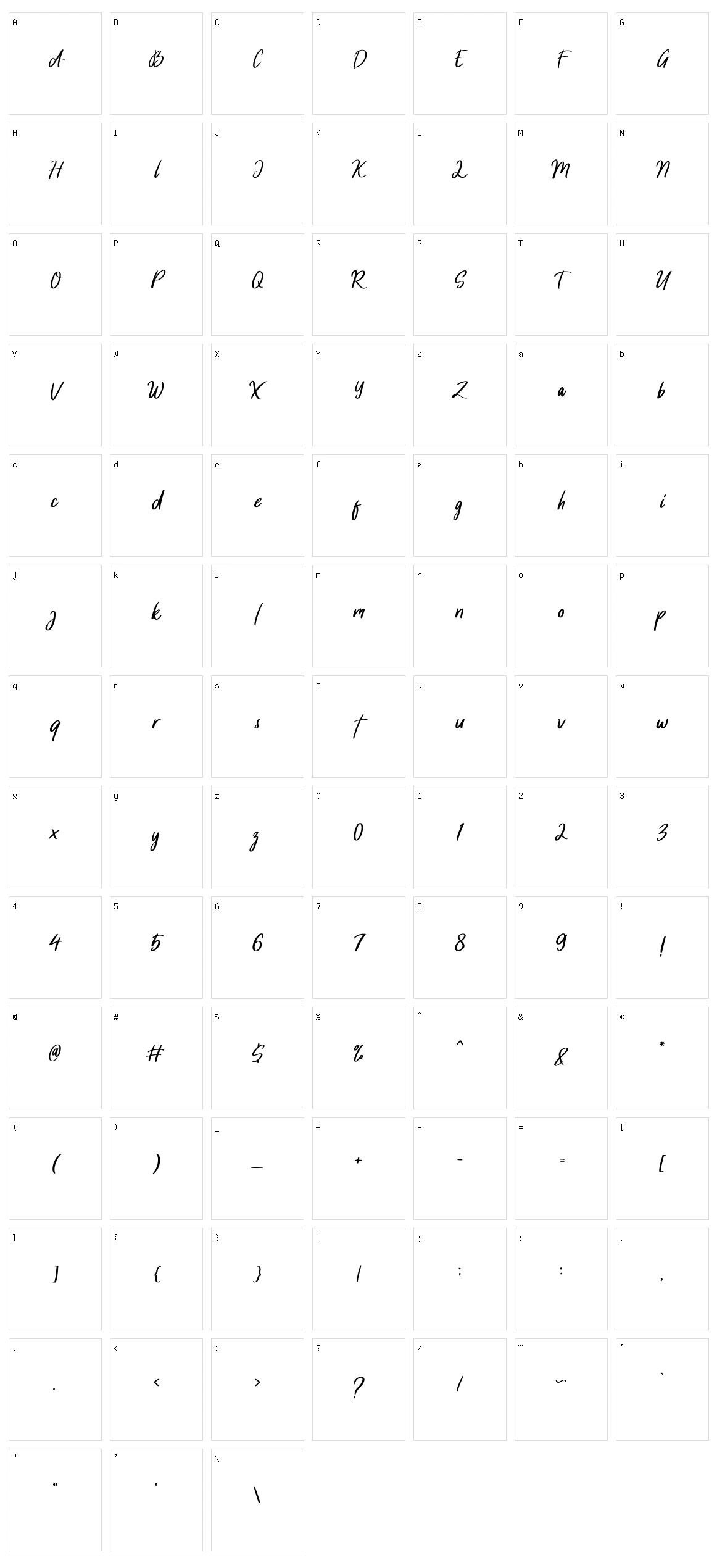
The free font The Outstand is carefully designed by Moonstone Co, showcasing a thoughtful balance of creativity and usability and falls under the Script font style. When you download the ZIP file, it contains only 31.96 KB of font files, making it lightweight and quick to download. Please review the license details below to understand permitted usage and distribution rights. If license information is not available, we recommend using this font for personal projects only or contacting the author directly for commercial usage permissions.